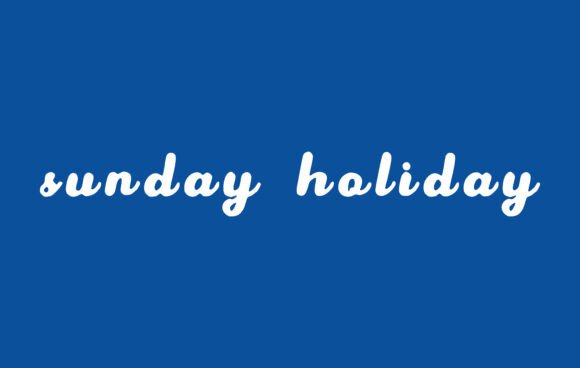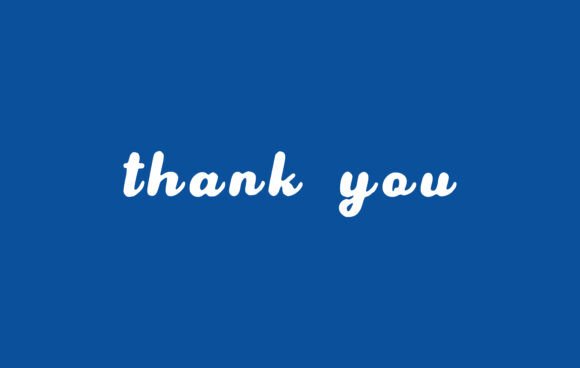
The Dani Font: A Romantic Touch for Your Creative Projects
I’ll never forget the time I was working on a wedding invitation design project, and my client asked for a font that was both elegant and playful. I scoured the internet, tried out countless fonts, but none seemed to fit the bill. That was until I stumbled upon the Dani font. With its authentic handwritten feel and romantic touch, it was love at first sight! In this article, I’ll share my experience with the Dani font, its features, and how to make the most of it in your creative projects.
A Personal Review of Dani Font
As a designer, I’m always on the lookout for fonts that can elevate my work. Here’s what I love about the Dani font:
- ✨ Legibility: The Dani font is incredibly easy to read, making it perfect for both title and body text.
- ✅ Romantic touch: The font’s handwritten feel adds a touch of warmth and personality to any design.
- 💕 Versatility: From magazine headlines to social media graphics, wedding invitations, and more, the Dani font can be used in a wide range of creative projects.
Of course, no font is perfect, and there are a few quirks to be aware of:
- 🤔 Limited availability of stylistic alternates: While the Dani font has some great OpenType features, it’s not overflowing with stylistic alternates.
- ⚠️ May not be suitable for very small text sizes: As with many handwritten fonts, the Dani font may not be the best choice for very small text sizes.
- Experiment with OpenType features, such as ligatures and stylistic alternates, to add some personality to your text.
- Explore the font’s glyphs and stylistic alternates using the OpenType panel (usually found under the Window menu).
The Story Behind Dani Font
While I couldn’t find any information on the exact origins of the Dani font, it’s clear that it was designed with love and care. The font’s creator likely drew inspiration from traditional handwritten scripts, with a focus on elegance and legibility. Whether or not the font has a specific design story behind it, its beauty and versatility are undeniable.
| What is the Dani font best suited for? | The Dani font is perfect for creative projects that need a touch of elegance and romance, such as wedding invitations, magazine headlines, social media graphics, and more. |
| Is the Dani font legible? | Yes, the Dani font is incredibly easy to read, making it suitable for both title and body text. |